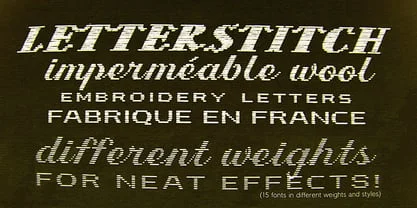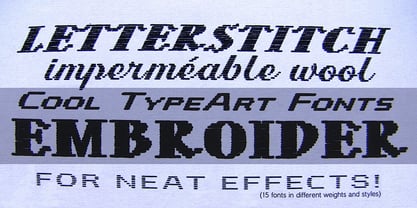
Letterstitch Script Font
Letterstitch Script Font is perfect for embroidery design, needlework branding, craft project logos, handmade product labels, textile company branding, sewing pattern designs, quilting materials, artisan craft signage, hobby workshop materials, and creative stitching projects.
Letterstitch Script Font is exciting because it beautifully captures the artisanal charm of hand-stitched embroidery with its intricate letterforms that mimic the delicate precision of needle and thread work. Its unique character design evokes the warmth and personal touch of traditional craftsmanship, making it perfect for brands that celebrate handmade quality, creative expression, and the timeless art of needlework.
The Letterstitch Script Font family includes Regular weight, Bold variation, Outline styles, Shadow effects, Decorative stitching elements, Cross-stitch alternates, Embroidery flourishes, and Needlework ornaments, providing designers with comprehensive tools for creating authentic craft-inspired typography that celebrates the beauty of handmade artistry.
Letterstitch Script Font brings the authentic appeal of traditional needlework to modern design applications, featuring carefully crafted letterforms that honor the heritage of embroidery and stitching arts. This charming typeface combines artisanal authenticity with contemporary functionality, creating the perfect solution for brands operating in the craft, textile, and handmade product markets.
Whether you're developing craft brand identities, designing embroidery patterns, creating needlework tutorials, or producing artisan product packaging, Letterstitch Script Font provides the handcrafted foundation needed for authentic craft communication. Its stitched character makes it particularly effective for embroidery shops, quilting stores, craft supply retailers, and handmade product creators who value traditional artistry.
Perfect for craft designers, embroidery artists, needlework instructors, and artisan brand developers, this font offers the handmade qualities essential for successful craft market positioning. The typeface's versatile nature ensures consistent charm across both digital craft platforms and traditional printed materials.
Letterstitch Script Font includes comprehensive craft-focused character sets, stitching-inspired design elements, and thoughtful spacing that ensures beautiful results in needlework design applications. Its artisanal approach to typography makes it invaluable for brands celebrating handmade craftsmanship. Create beautiful stitched designs with Letterstitch Script Font and discover typography that's lovingly crafted by hand.